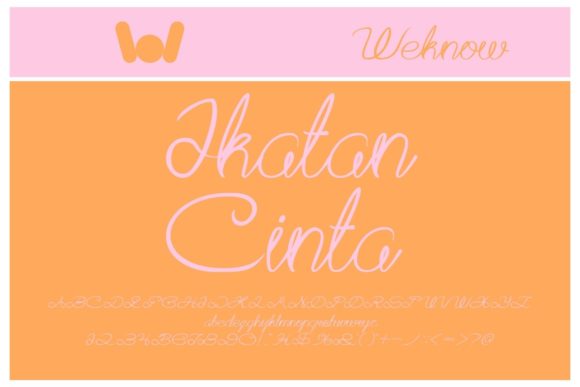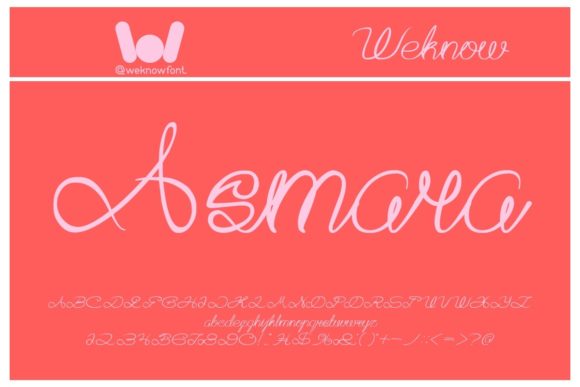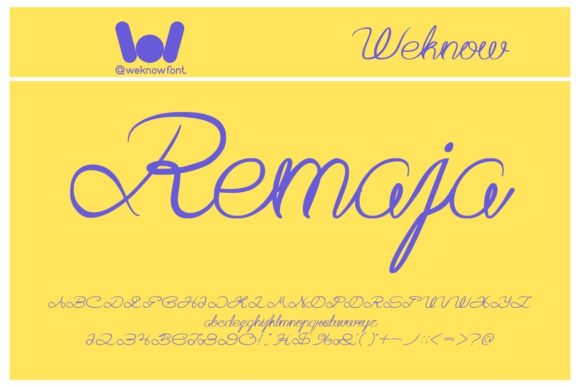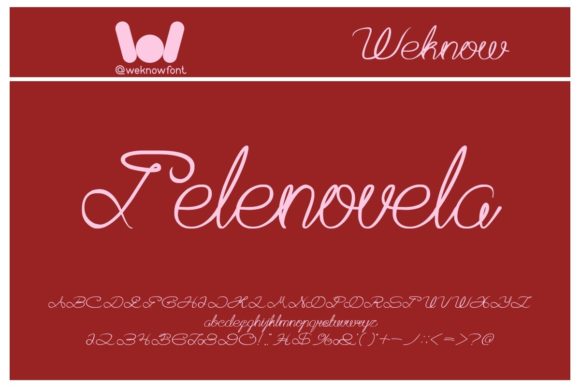
Aku Cinta Kamu Font: Elevate Your Designs with a Touch of Whimsy and Luxury
In the world of typography, fonts play a crucial role in conveying emotions and setting the tone for any design project. For those seeking a unique and captivating script font, Aku Cinta Kamu is an excellent choice. This sweet, whimsical, flowing, and thin script font is designed to add a luxury spark to any design, making it perfect for crafters and designers looking to elevate their creations.
What Makes Aku Cinta Kamu Font Stand Out?
Aku Cinta Kamu is characterized by its distinctive features, which set it apart from other script fonts. The font’s characters dance along the baseline, creating a sense of movement and fluidity. This whimsical touch adds a playful and romantic feel to any design, making it ideal for projects that require a touch of elegance and sophistication.
One of the key benefits of Aku Cinta Kamu is its versatility. The font’s thin and flowing lines make it suitable for a wide range of design applications, from wedding invitations and greeting cards to branding and packaging. Whether you’re creating a luxurious look or a more playful and casual design, Aku Cinta Kamu is an excellent choice.
For designers and crafters, Aku Cinta Kamu offers endless possibilities for creative expression. The font’s unique character and flowing lines make it perfect for a variety of projects, including:
- Wedding invitations and stationery: Add a touch of romance and elegance to your wedding designs with Aku Cinta Kamu.
- Greeting cards and gift tags: Create beautiful and personalized greeting cards and gift tags with this charming script font.
- Branding and packaging: Use Aku Cinta Kamu to add a luxurious touch to your brand’s packaging and marketing materials.
- Digital art and illustrations: Combine Aku Cinta Kamu with your digital art skills to create stunning and unique illustrations.
Tips for Using Aku Cinta Kamu Font
To get the most out of Aku Cinta Kamu, here are some tips to keep in mind:
- Pair with contrasting fonts: Combine Aku Cinta Kamu with bold and contrasting fonts to create visual interest and hierarchy.
- Experiment with colors: Try pairing Aku Cinta Kamu with different colors and textures to add depth and emotion to your design.
- Play with spacing: Adjust the spacing between characters to create a more dramatic or elegant effect.
Aku Cinta Kamu is a beautiful and versatile script font that can elevate any design project with its unique character and luxurious feel. Whether you’re a designer or crafter, this font is sure to inspire your creativity and help you create stunning and memorable designs. With its flowing lines, whimsical touch, and endless possibilities for creative expression, Aku Cinta Kamu is an excellent addition to any design toolkit.